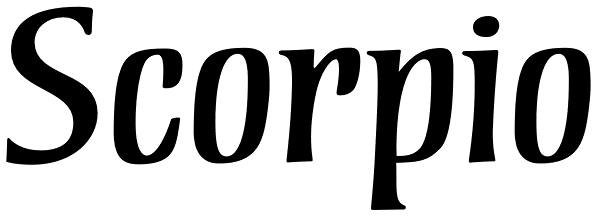
Scorpio
Scorpio is a font based on lettering Michael Harvey drew for the card “The Sign of The Nudge” which was designed in collaboration with the concrete poet, Ian Hamilton Finlay. The purpose of the card was to prompt those owing monies to IHF, into...